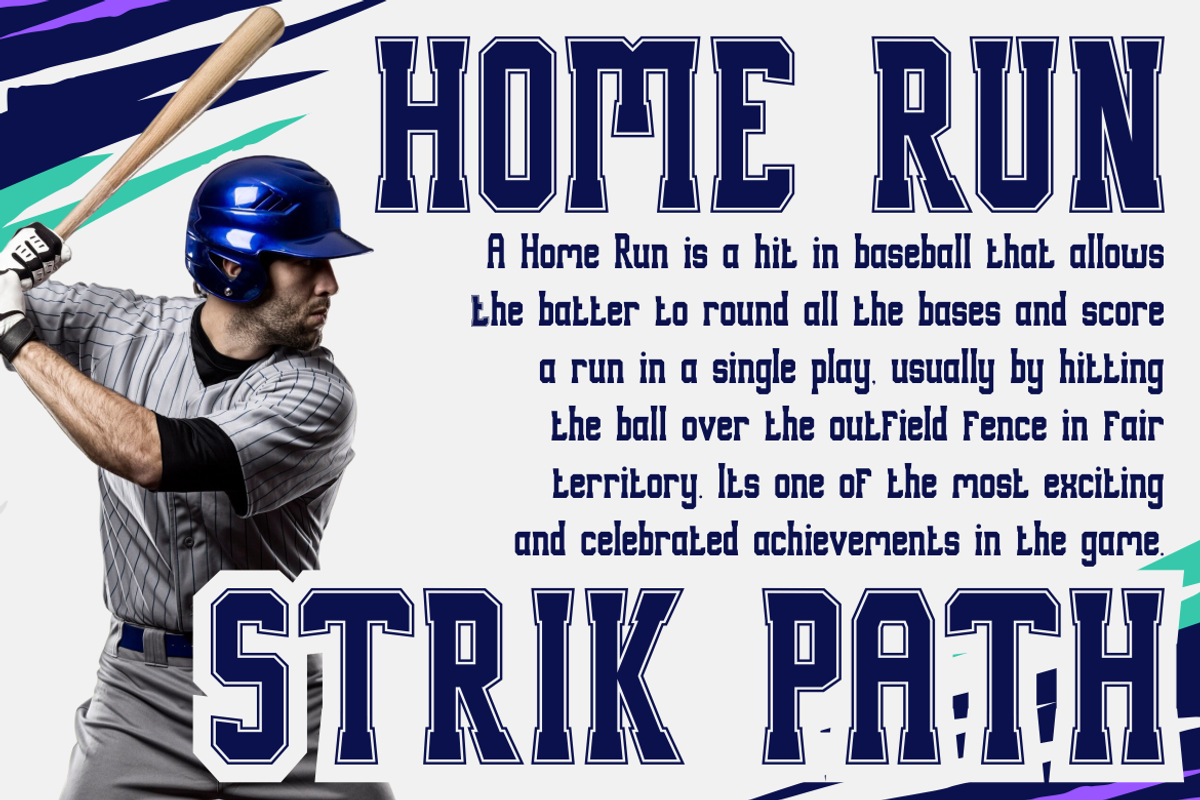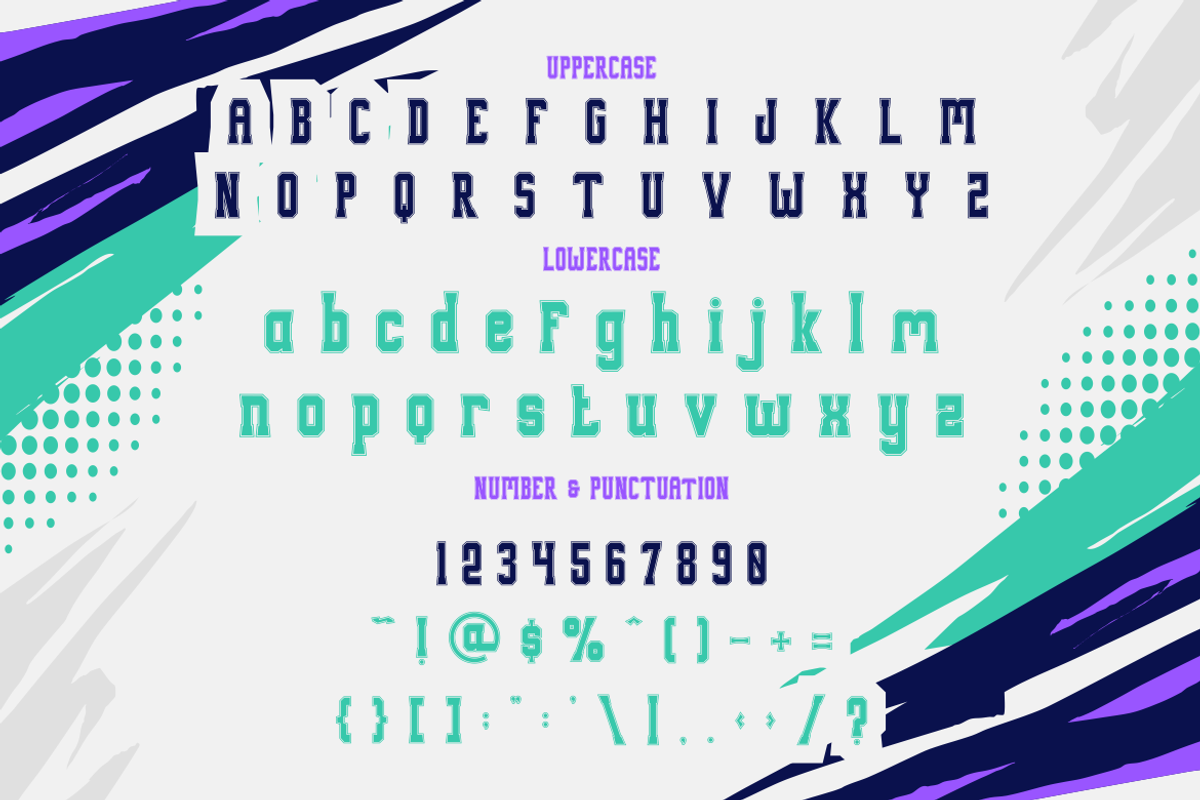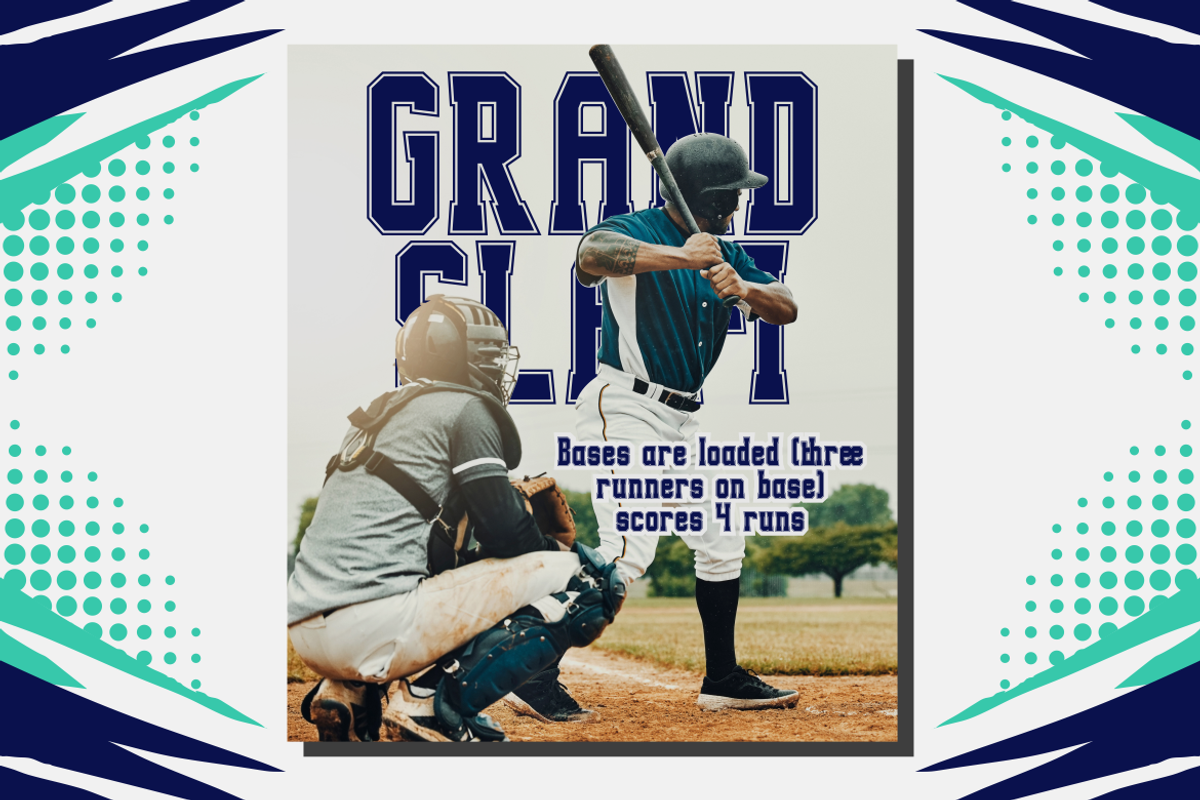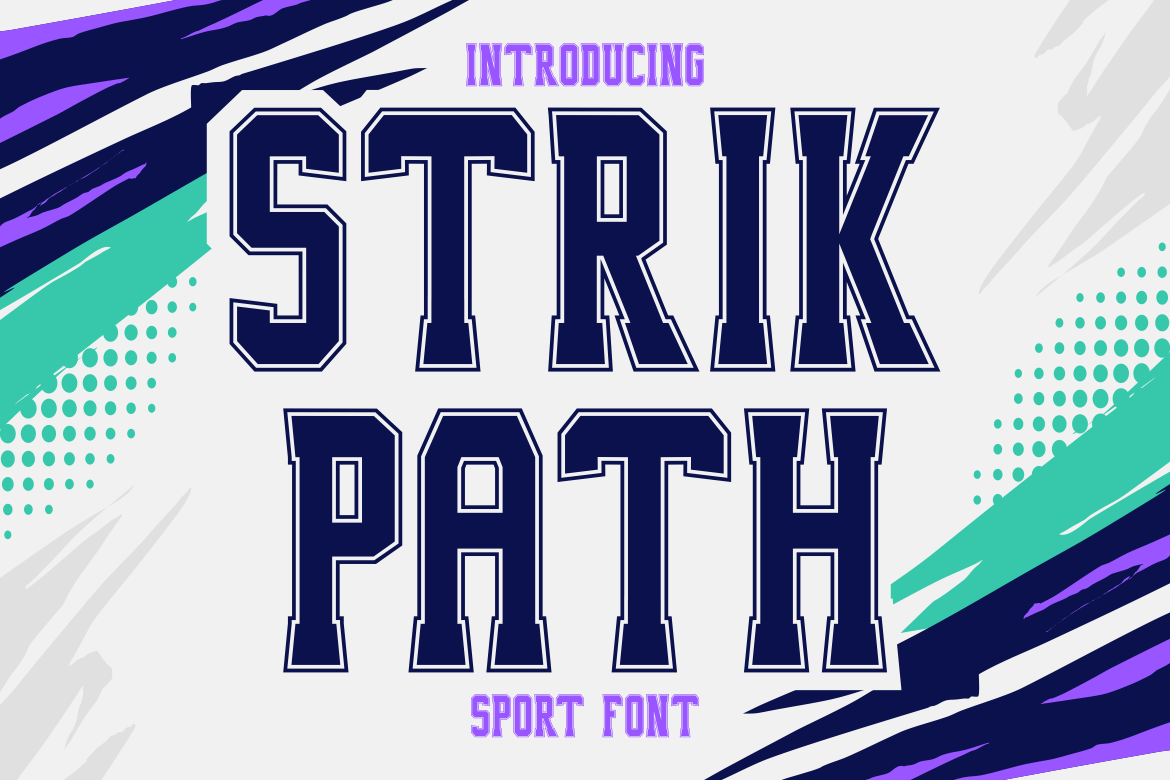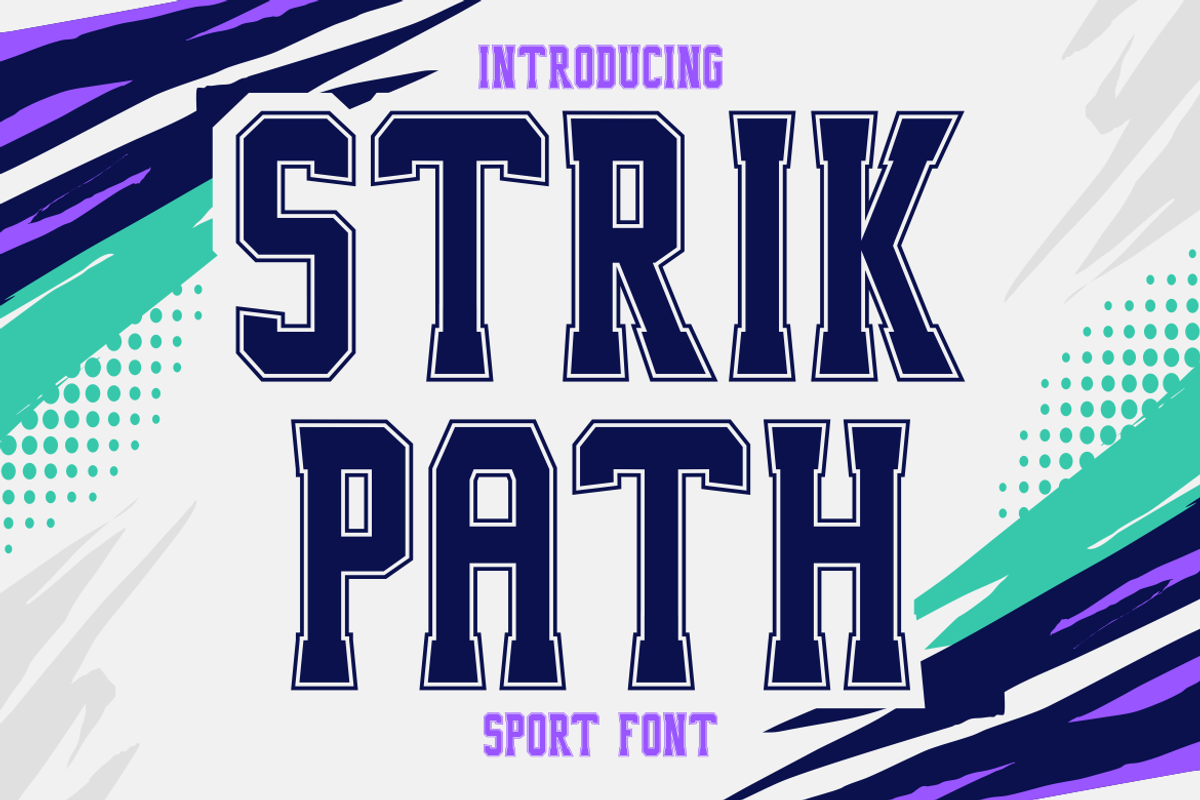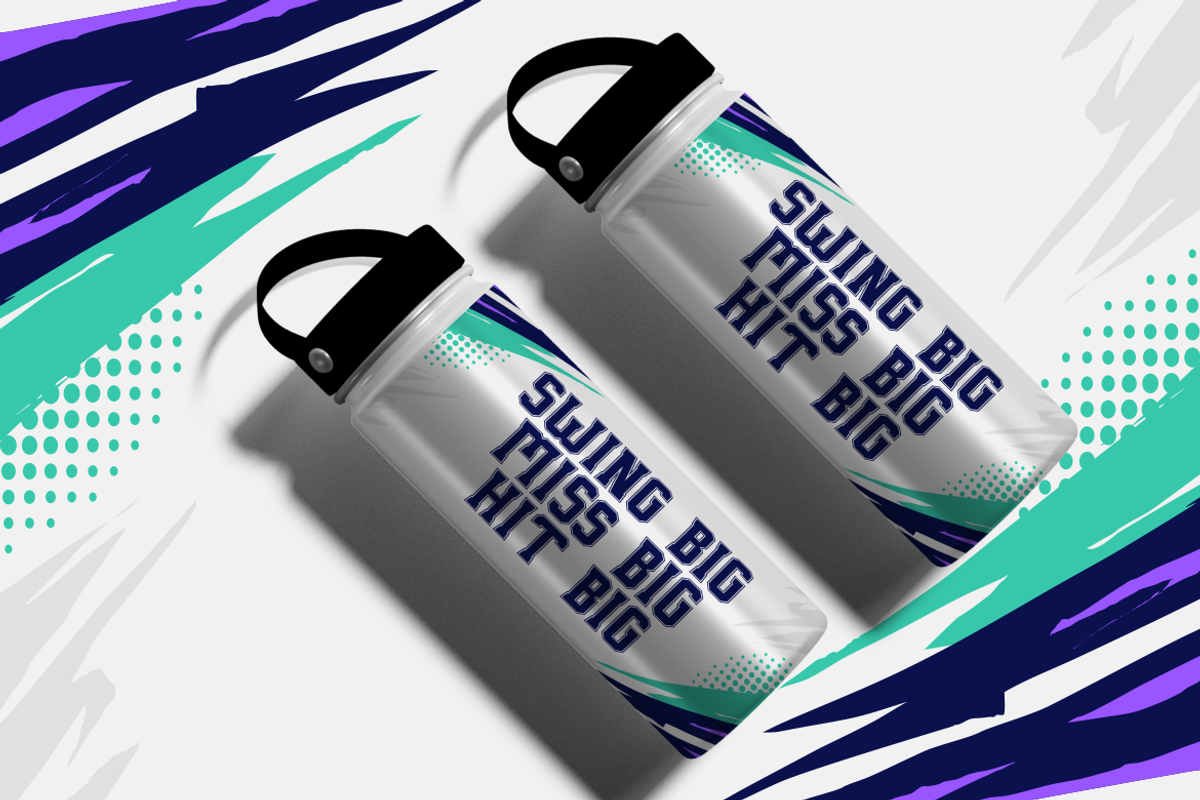
Strik Path - Sport Font
Strik Path is a dynamic sport display font inspired by athletic energy and stadium flair. With sharp corners, extended limbs, and classic varsity outlines, this font commands attention. Its bold, structured form is ideal for sports branding, team apparel, and competitive merchandise. Whether you're designing a game-day poster or custom water bottles, Strik Path brings all-star impact. The uppercase characters feature uniform thickness with angular serifs, while the lowercase complements with sharp consistency and high legibility.
This font thrives in high-impact settings—from baseball flyers to workout gear packaging. Its clean, masculine form makes it suitable for logos, banners, and sports-themed editorial headlines. The layout examples show its versatility on dynamic backgrounds, including halftone patterns and fast-paced color streaks. It's perfect for branding campaigns, custom merchandise, and digital media where strong, athletic identity is key. Every detail—from the tight tracking to the sturdy frame—communicates speed, strength, and a winning spirit.